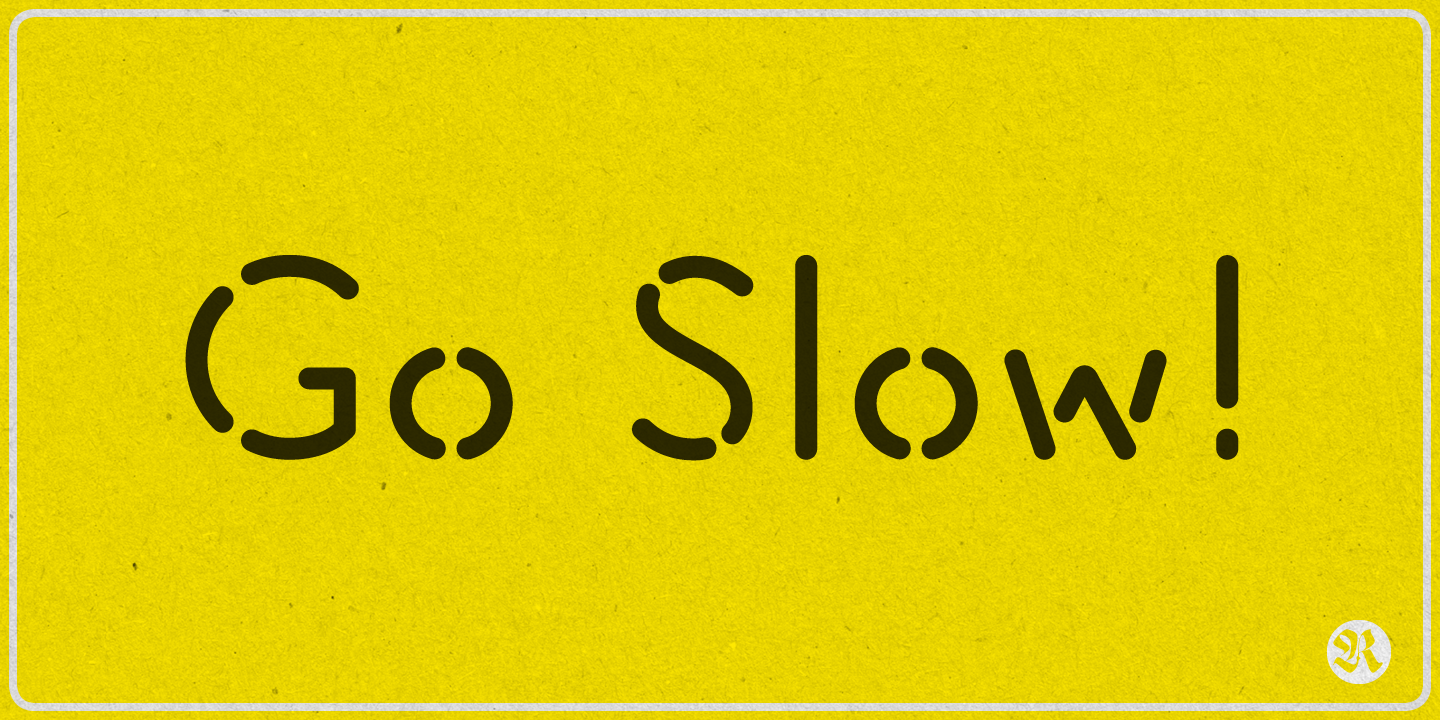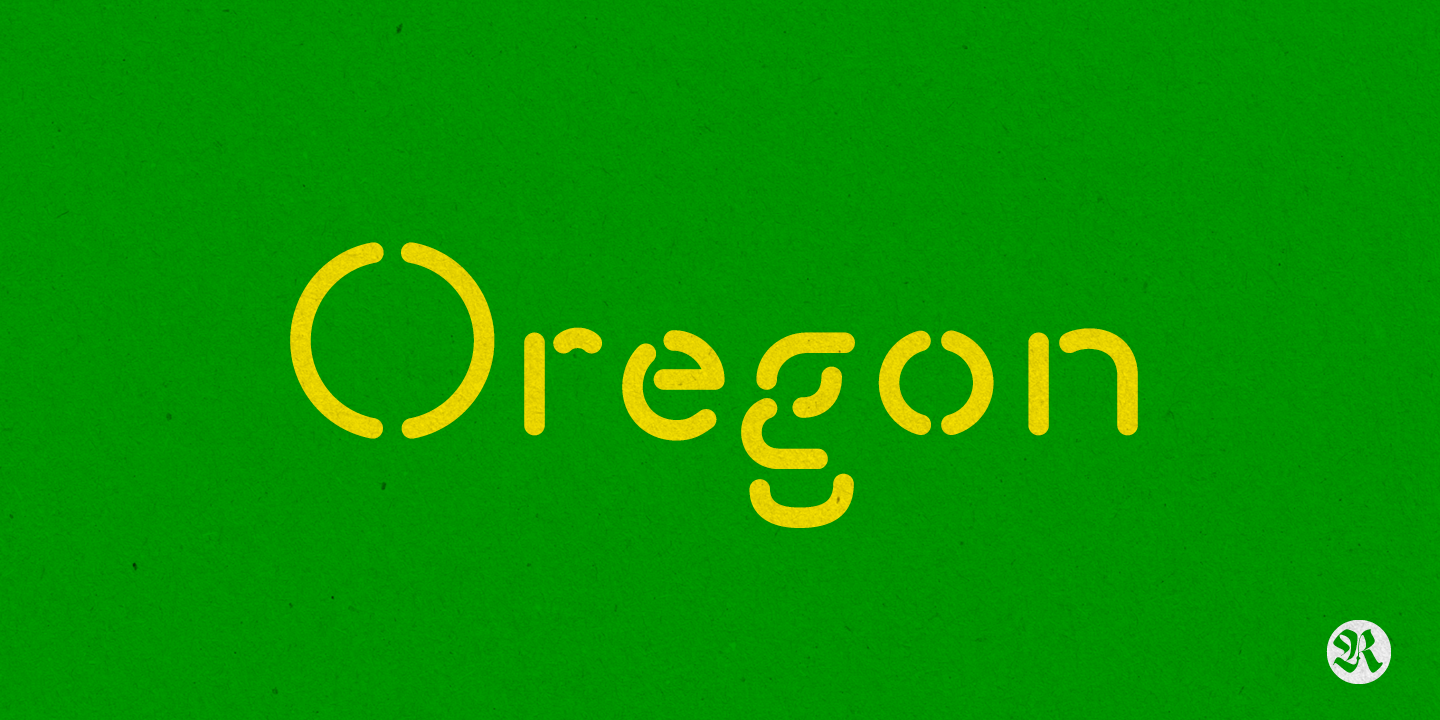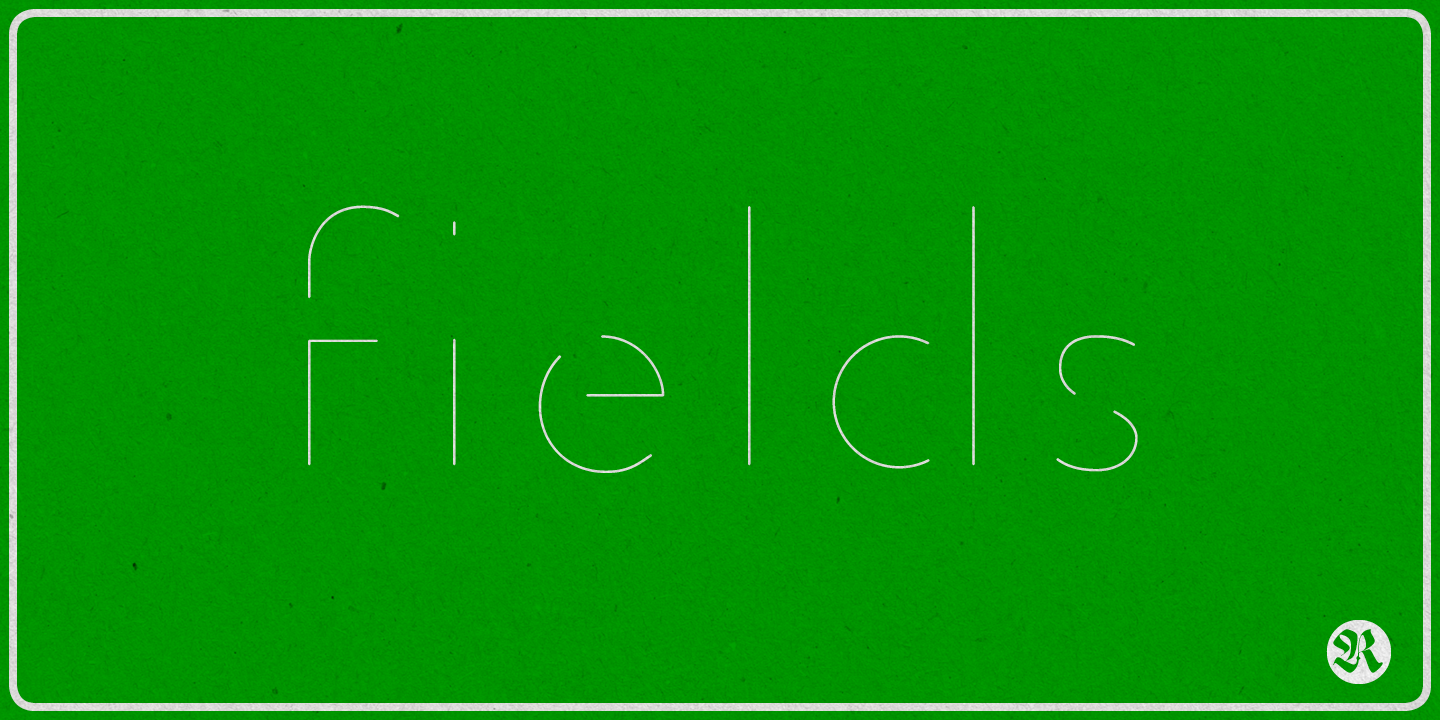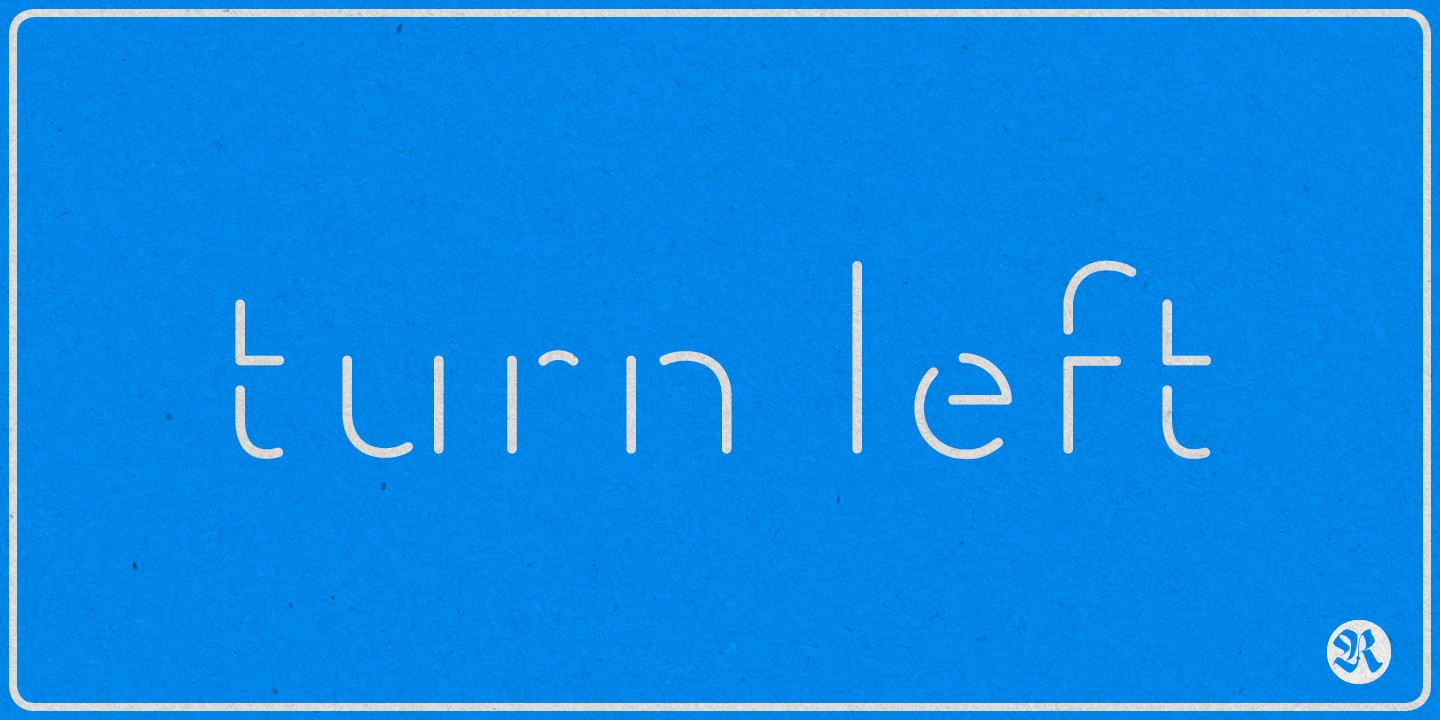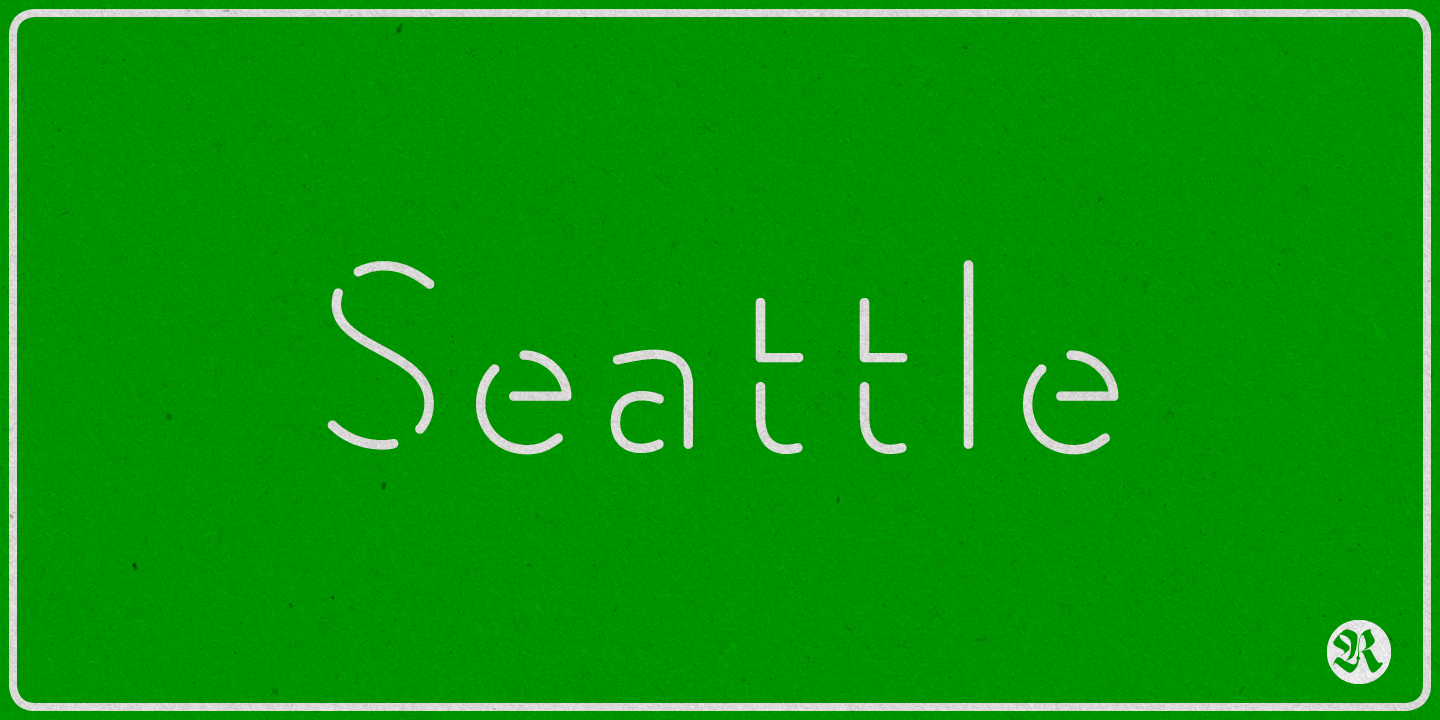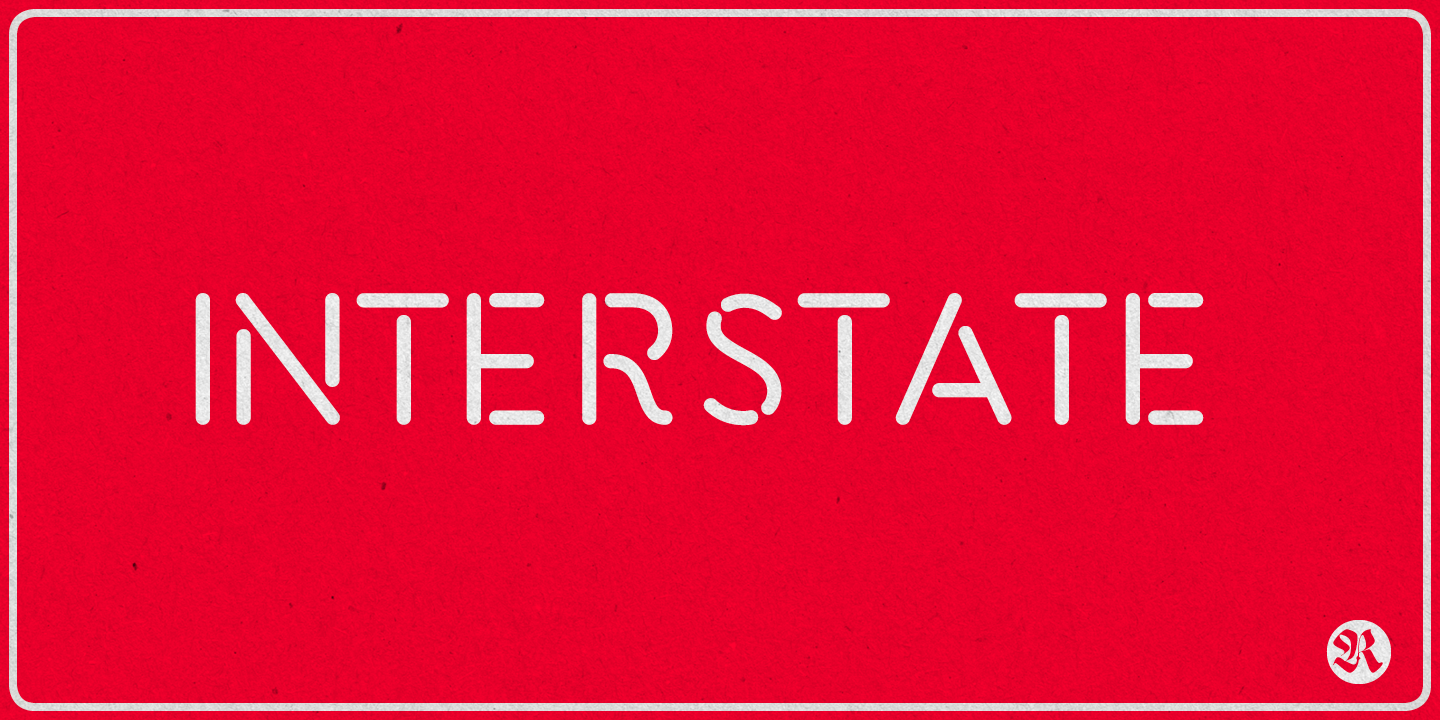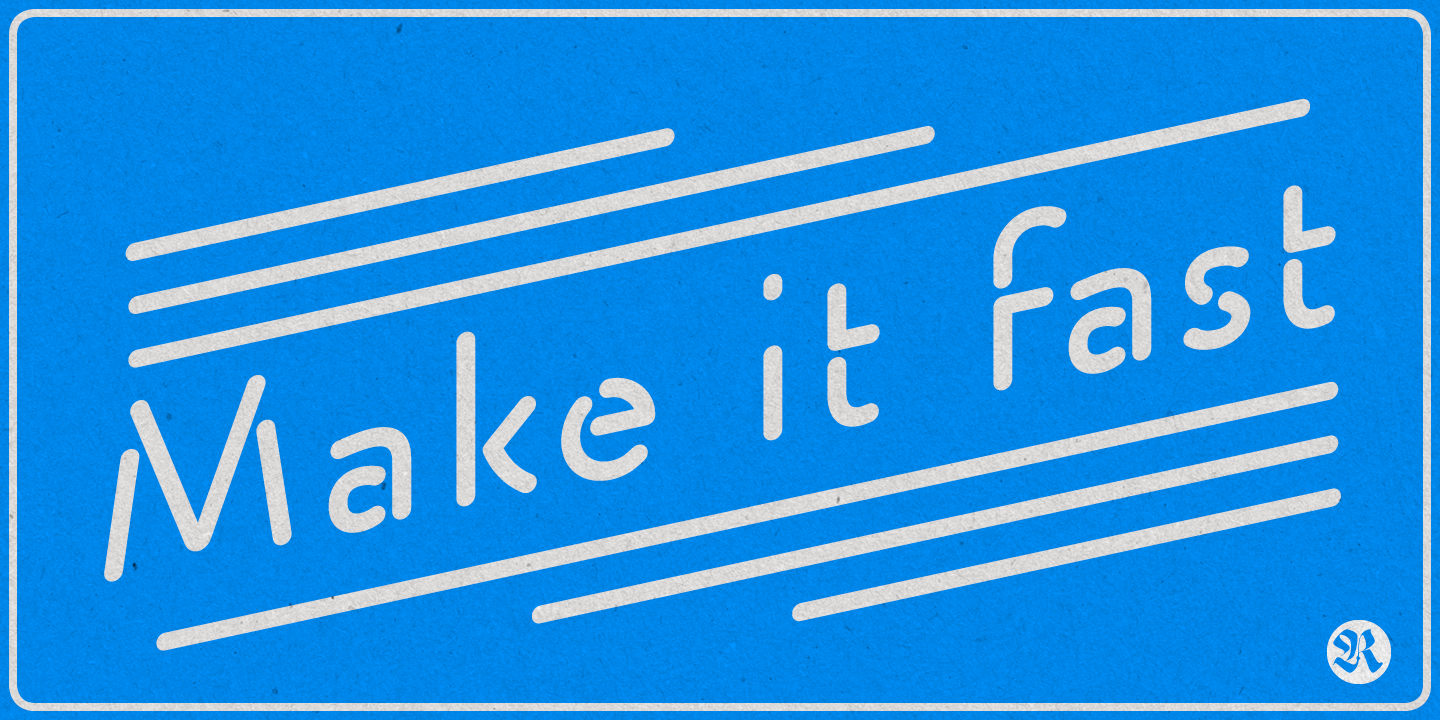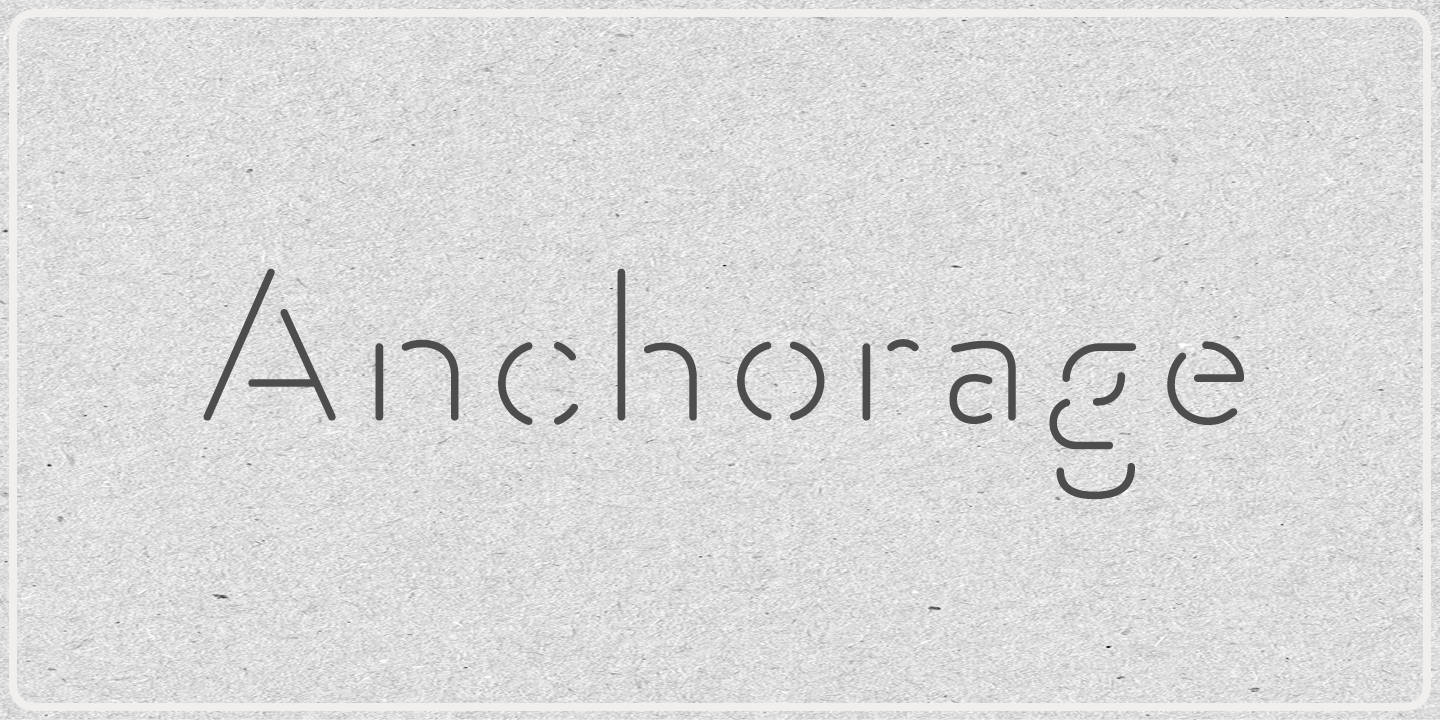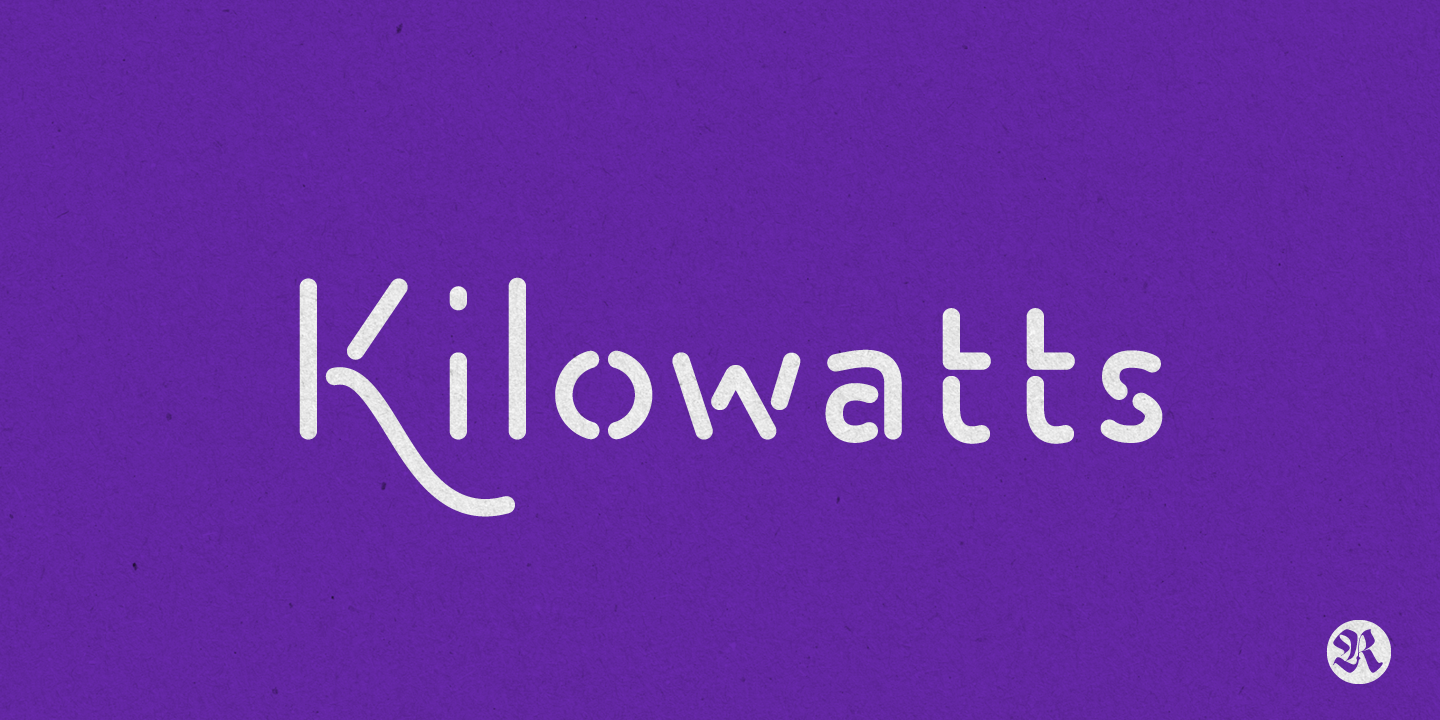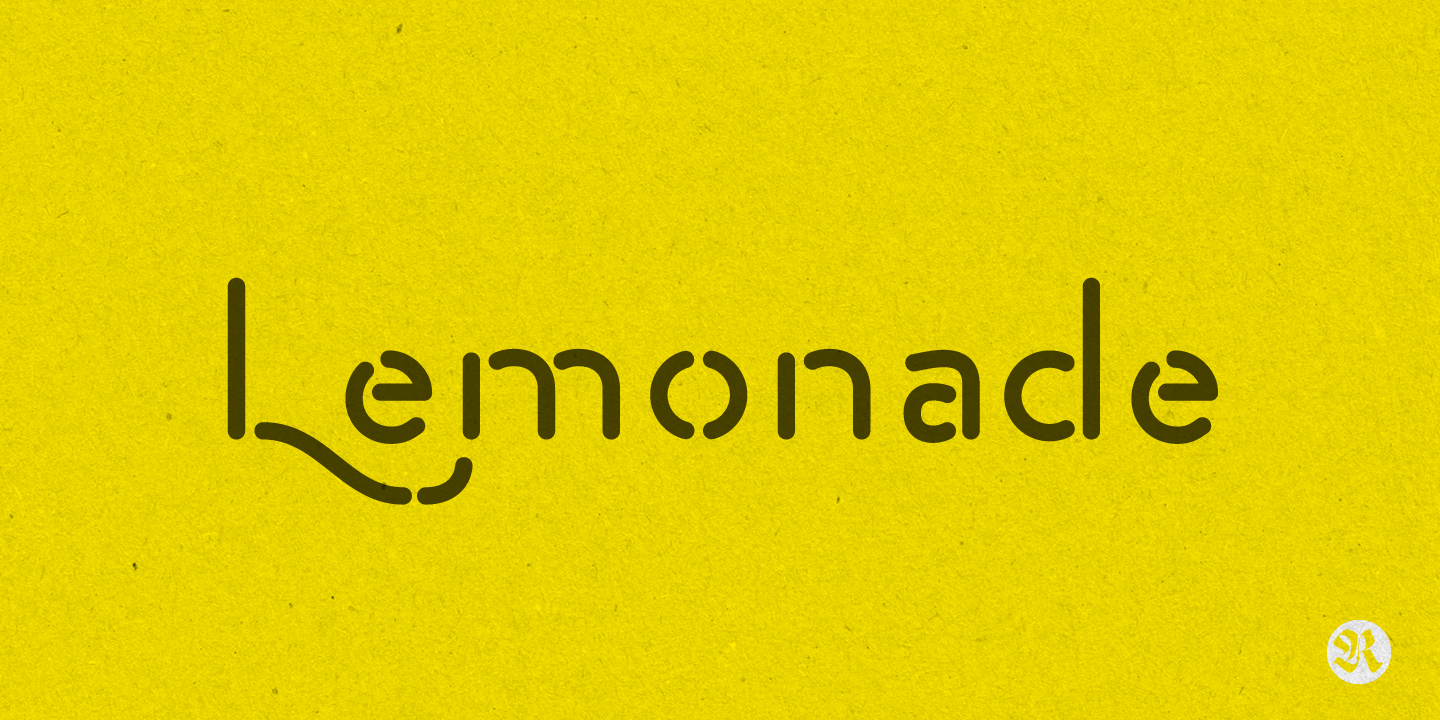
Stencil Creek
A stencil font family
Stencil Creek
Designed by Resistenza Type FoundryStencil Creek font family is a rounded stencil typeface that comes in eight weights and two rough versions.It is inspired by classic sans serifs and influenced by street signs of the North West Pacific.
This legible typeface family is a good example of contemporary typography, especially to use in headlines, but also for reading purposes, includes extensive language support and many more OpenType features containing different swashes and alternates. You can also overlap some of the weights and get an extra inline font.